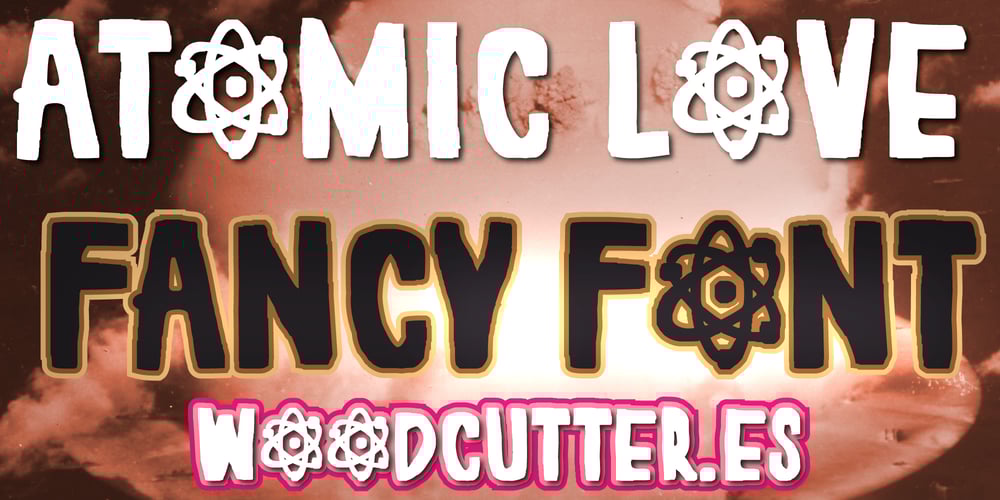
Atomic Love
Atomic Love font
Atomic Love Font Family was designed by Jordi Manero and published by Woodcutter. Atomic Love contains 1 styles and family package options. “Atomic Love” is an uppercase typeface with a fun and comic style that captures the essence of a hand-drawn stroke. Each letter has a playful and casual touch, perfect for creative projects aiming to stand out with a cheerful and unique vibe. The most striking feature is the “O,” which has been cleverly replaced by the atomic symbol, adding a scientific and modern element to the design. This font is ideal for eye-catching titles, posters, and any project needing a bold and distinctive typeface with a humorous twist.